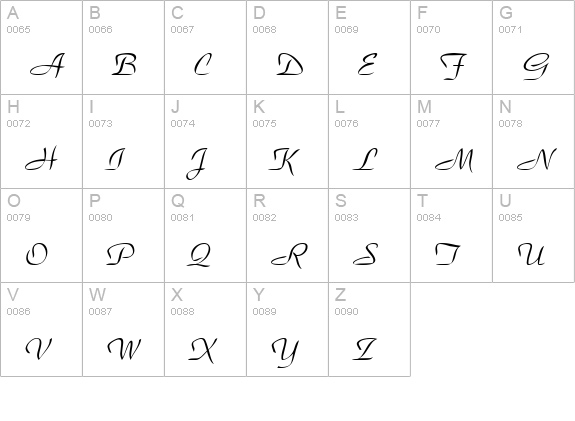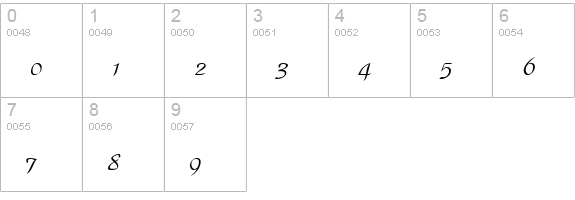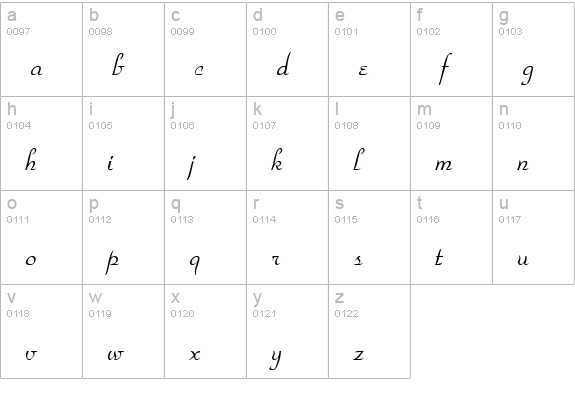
TR Paradise Plain Font Details
TR Paradise Plain font is a modern and stylish typeface that exudes elegance and sophistication. With its clean lines and minimalist aesthetic, this font is perfect for a wide range of design projects, from branding to editorial design. The sleek and timeless design of TR Paradise Plain font makes it a versatile choice for both print and digital applications. What makes TR Paradise Plain font even more appealing is that it is available for free download at FontsMarket.com. This means that you can easily access this high-quality font without having to worry about any additional costs. Whether you are a professional designer or a hobbyist, TR Paradise Plain font is a valuable addition to your font library. Don't miss out on the opportunity to enhance your designs with this beautiful and free font today!